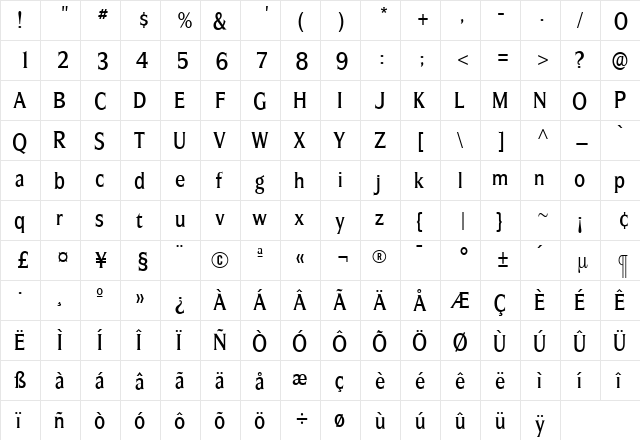
SilveradoMediumCondensed Roman
Design Context for SilveradoMediumCondensed Typeface
SilveradoMediumCondensed is a composed and adaptable typeface that performs quietly and consistently across a wide range of design contexts. The condensed width makes it efficient for tight spaces without sacrificing legibility.